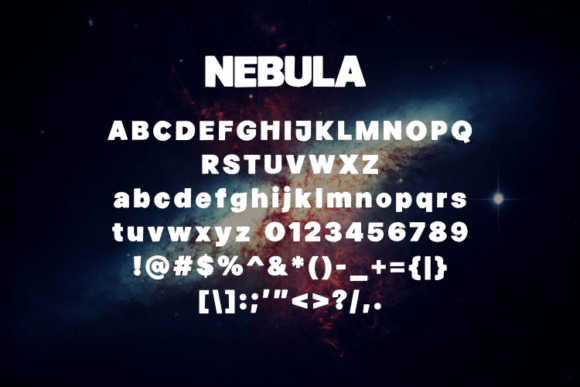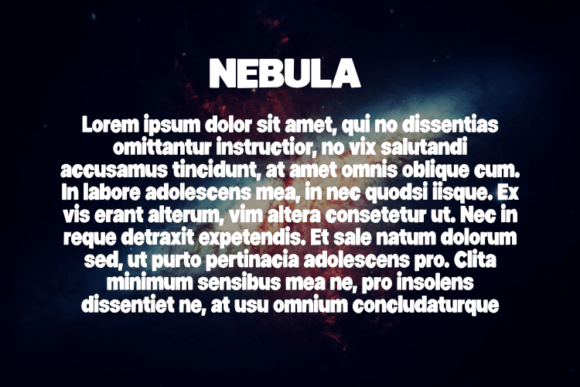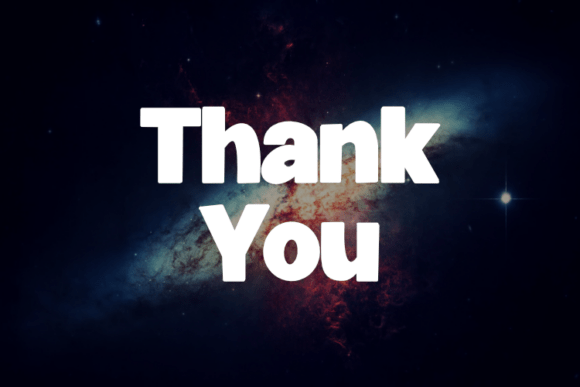
Introduction to Nebula Font
Immerse yourself in the cosmic class with “NEBULA”, a stellar font specially designed for apparel, t-shirt, and a multitude of product designs.
Crafted to harmonize with versatile design aesthetics and cater to all software, NEBULA embodies both otf and ttf file formats This transcendent font holds the power to elevate your designs, offering a magnificent backdrop to your creative expression.